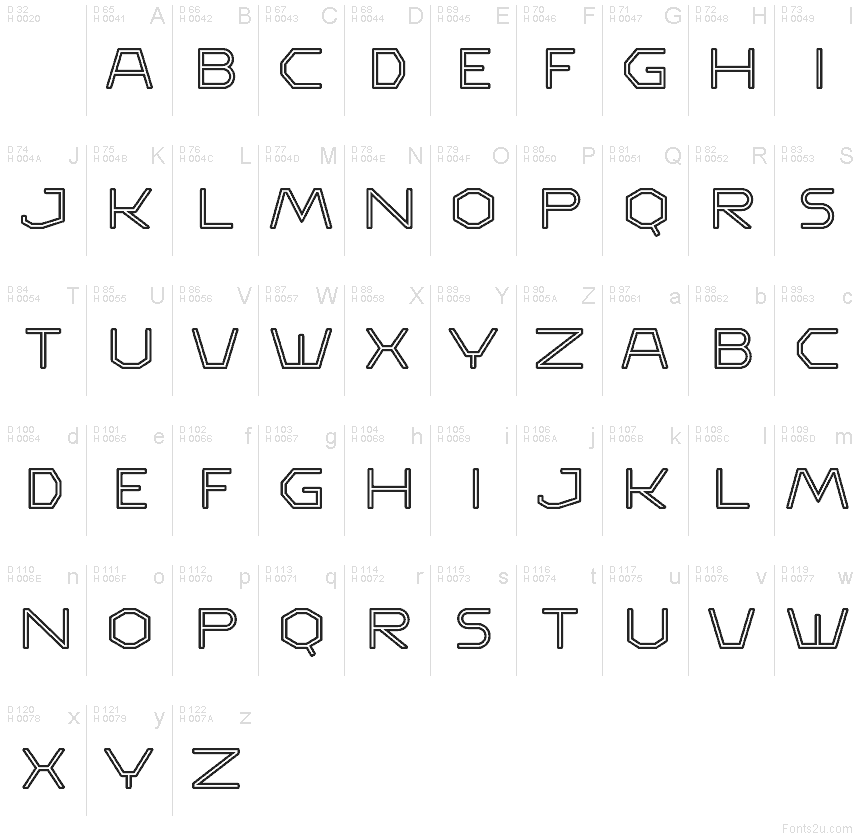
Ecco Thin font by Vladimir Nikolic is a free outlined display typeface that turns every word into a neon-like circuit. Built from tight octagonal bends and double-line strokes, it has a clean, technical feel that still reads easily from a distance. The Ecco family’s rigid geometry gives it a futuristic, engineered rhythm, as if each letter were drawn with a plotting machine on polished metal.
Using Ecco Thin, you can give sci-fi posters, gaming covers, tech branding, event flyers, apparel graphics, and signage a sharp, digital edge. The generous inner space of each glyph keeps the outline structure from feeling cluttered, even at larger sizes. This free font pairs well with a simple, neutral sans serif for body copy-just keep Ecco Thin for headlines and short phrases where its graphic structure can really shine.